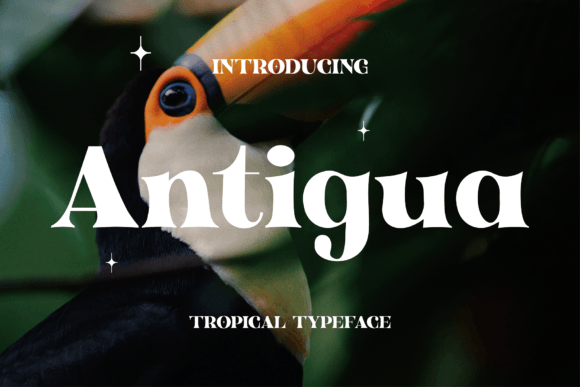
The Perfect Typographic Match for Your Next Design Project
Remember the moment when you stumbled upon the perfect font to elevate your design project? The one that instantly made you feel like you’re on the right track? For many designers, that moment is a reality with the Antigua Font. This elegant serif font family is more than just a pretty face – it’s a versatile and memorable tool that can breathe new life into your branding, packaging, posters, social media, and magazines.
Whether you’re a seasoned designer or just starting out, the Antigua Font is an invaluable addition to your toolbox. Its simplicity and boldness make it a joy to use and read, ensuring that your message gets across with clarity and impact. With its two flavors – regular and outline – plus bonus ligatures, you’ll have endless possibilities to experiment and create something truly unique.
Antigua Font Key Features
- Font Family: Antigua is a serif font, designed for use in body text and titles.
- Unique Characteristics: Antigua features a distinctive, elegant design with high contrast between thick and thin lines, making it suitable for use in both print and digital media.
Antigua Font Review
Overall, I think Antigua Font is a nice addition to any designer’s toolkit. ✨ The font has a unique blend of classic and modern elements that work well for a variety of projects. Here are a few things that I like:
- ✨ The font’s classic feel is immediately noticeable, which makes it perfect for historical or vintage-themed projects.
- ✨ Antigua Font has a high level of detail, making it ideal for use in logos, headings, and other areas where a lot of emphasis is needed.
- ✨ The font is highly legible, even at smaller sizes, which is essential for projects where text is a primary focus.
- ⚠️ The font may be too ornate for some projects, which can make it difficult to read in certain contexts.
- ⚠️ Antigua Font doesn’t have a lot of variation in terms of style or weight, which can make it feel a bit one-dimensional.
- ⚠️ The font may not be the best choice for projects where a lot of text is needed, as it can be quite time-consuming to work with.
Overall, I would recommend Antigua Font for designers who are looking for a unique and classic feel for their projects. While it may have some limitations, it’s definitely worth considering for the right project.
Getting the Most Out of Antigua Font
To get the most out of the Antigua Font, use it to create elegant and sophisticated designs. Pair it with high-quality images and use it sparingly to create visual interest.
The Antigua Font is commonly used for:
- Formal event invitations
- High-end branding and marketing materials
- Formal letterheads and business cards
Alternatives to Antigua Font
Playfair Display is an elegant, luxurious serif font that works well for high-end branding and advertising. It’s perfect for creating a sense of sophistication and refinement. When to use: luxury brands, high-end products, formal invitations.
Playfair Display is more ornate than Antigua Font, with intricate details and flourishes. While Antigua Font has a classic, timeless feel, Playfair Display is more dramatic and eye-catching.
2. Garamond
Garamond is a classic, elegant serif font that’s perfect for books, magazines, and other publications. It’s also great for corporate branding and advertising. When to use: books, magazines, corporate branding, formal documents.
Garamond is more understated than Antigua Font, with a clean and simple design. While Antigua Font has a sense of grandeur, Garamond is more subdued and refined.
3. Bodoni
Bodoni is a classic, elegant serif font that’s perfect for luxury brands, high-end products, and formal invitations. It’s also great for creating a sense of drama and sophistication. When to use: luxury brands, high-end products, formal invitations, advertising.